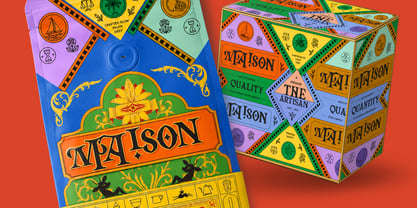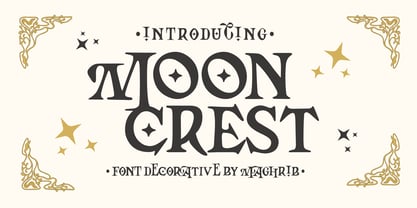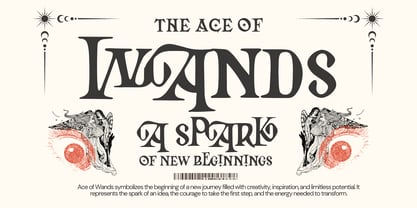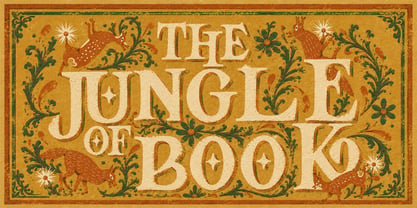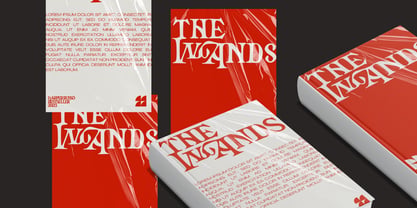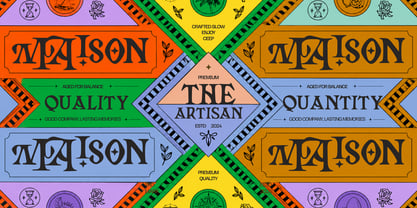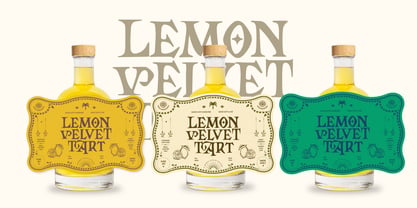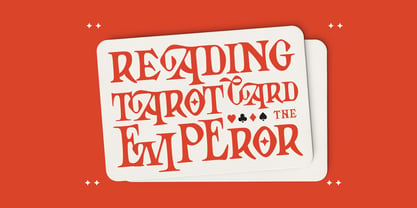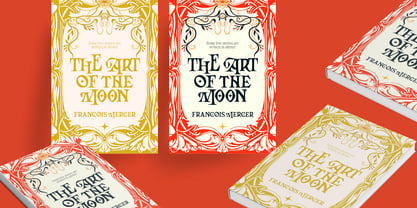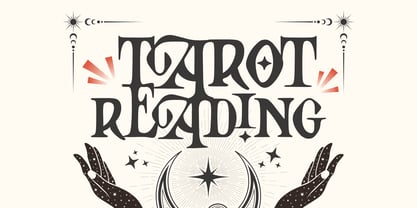
Mooncrest
by Maghrib Type
The Mooncrest Font Family was designed by Rizky Setyaludin and published by Maghrib Type. Mooncrest contains 1 styles. More about this family
Mooncrest is a decorative serif font where vintage elegance meets mystical charm. Inspired by antique tarot cards, celestial symbols, medieval lettering, and the timeless beauty of Art Nouveau, Mooncrest transforms every word into a captivating visual statement.
Its graceful high-contrast serifs, flowing curves, and carefully crafted ornamental details create a magical atmosphere while remaining surprisingly readable. Every character is designed with personality—from sparkling diamond-shaped counters to elegant swashes and whimsical terminals—making Mooncrest perfect for designers who want typography to become the centerpiece of their work.
Whether you're creating premium branding, mystical packaging, boutique logos, editorial layouts, or enchanting social media graphics, Mooncrest delivers an unforgettable handcrafted aesthetic that feels both nostalgic and contemporary.
Designed with versatility in mind, Mooncrest shines beautifully in both large display headlines and refined branding applications. Pair it with minimal layouts or rich vintage illustrations to unlock its full expressive character.
Designers: Rizky Setyaludin
Foundry: Maghrib Type